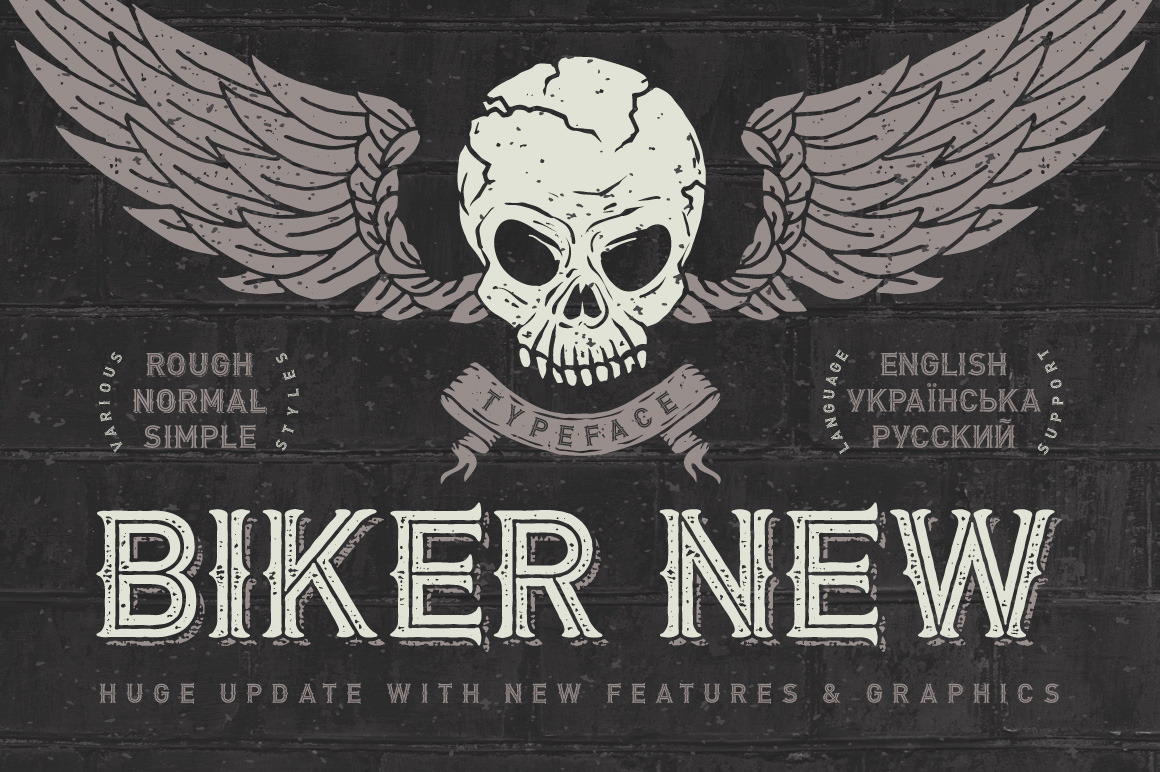
Biker Remastered font + graphics
Hello! Introducing a huge update of Biker typeface. Now it includes also cyrillic characters, numbers, and other basic glyphs (the fourth screenshot). Also now it has separated font files for shadow layer. Rough & clean versions are available. As a bonus included a skull illustration with wings and ribbon and a bear illustration in vector eps format.